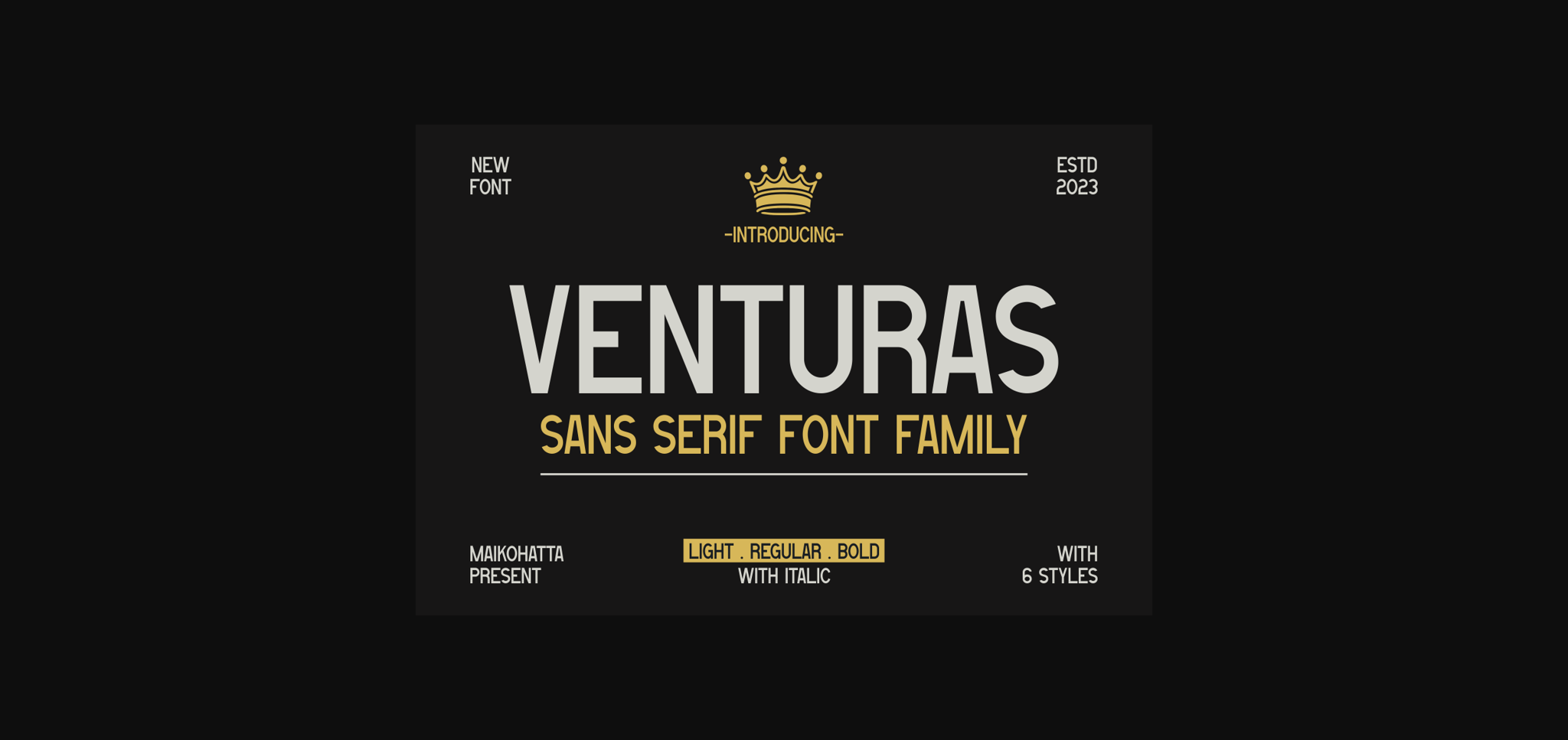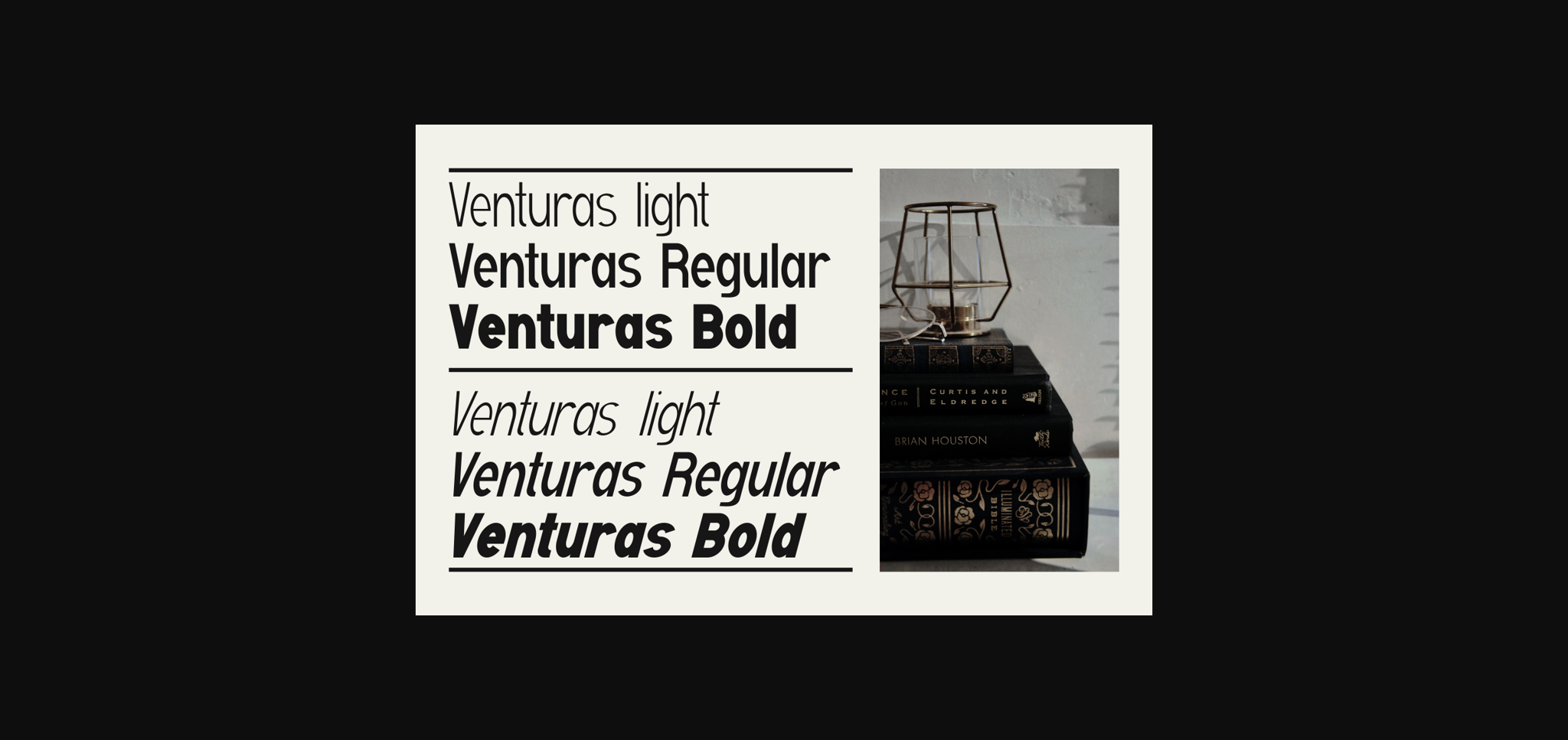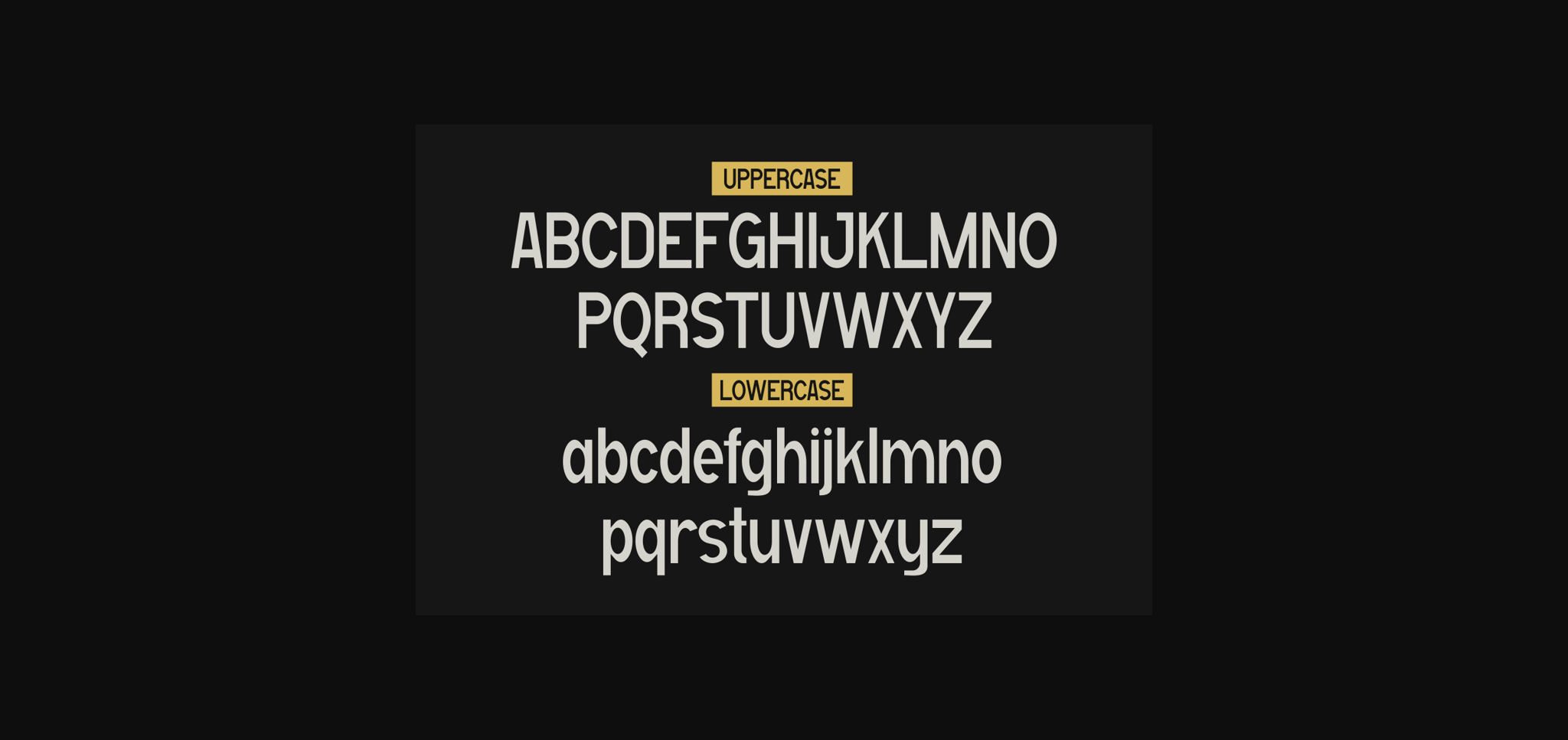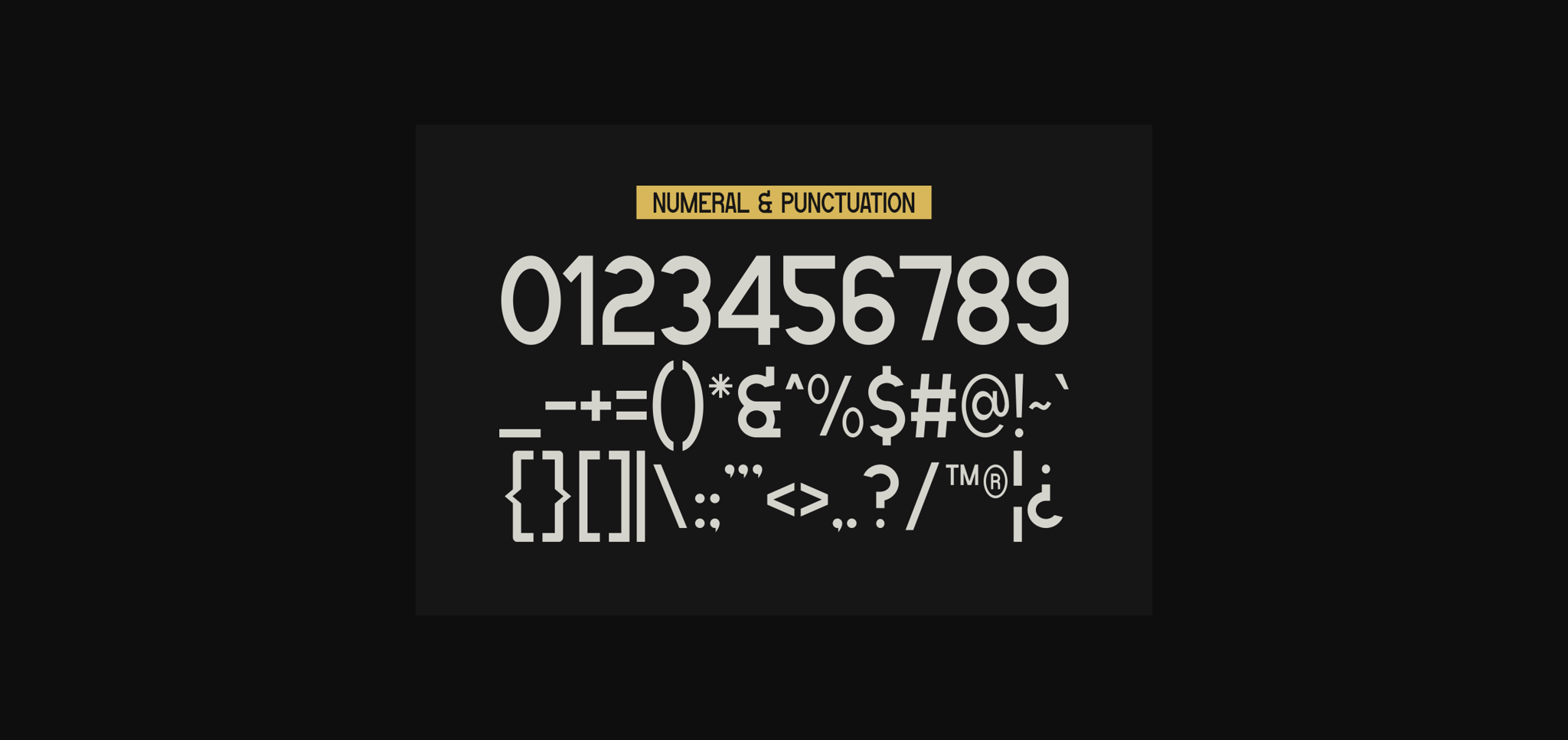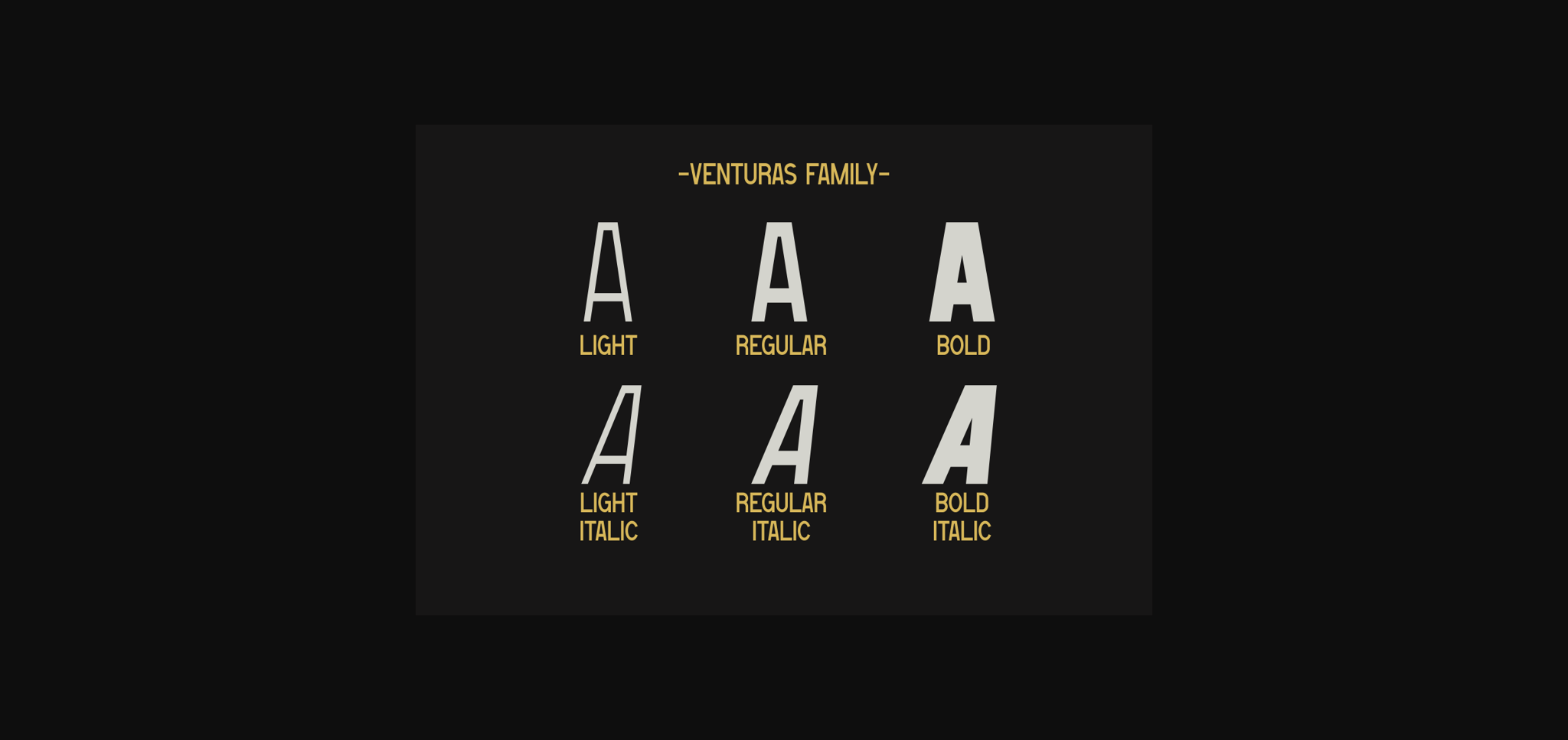
Venturas Font
About Venturas Font
Introducing our new product **Venturas** Sans Serif Font Family
A sans-serif font family available in various styles is a highly versatile choice for graphic design and clean, modern text displays. This sans-serif font family offers flexibility in graphic design, and its various styles allow you to customize the appearance of text to suit your project’s needs. With various combinations, you can create attractive and easy-to-read text displays in various contexts.